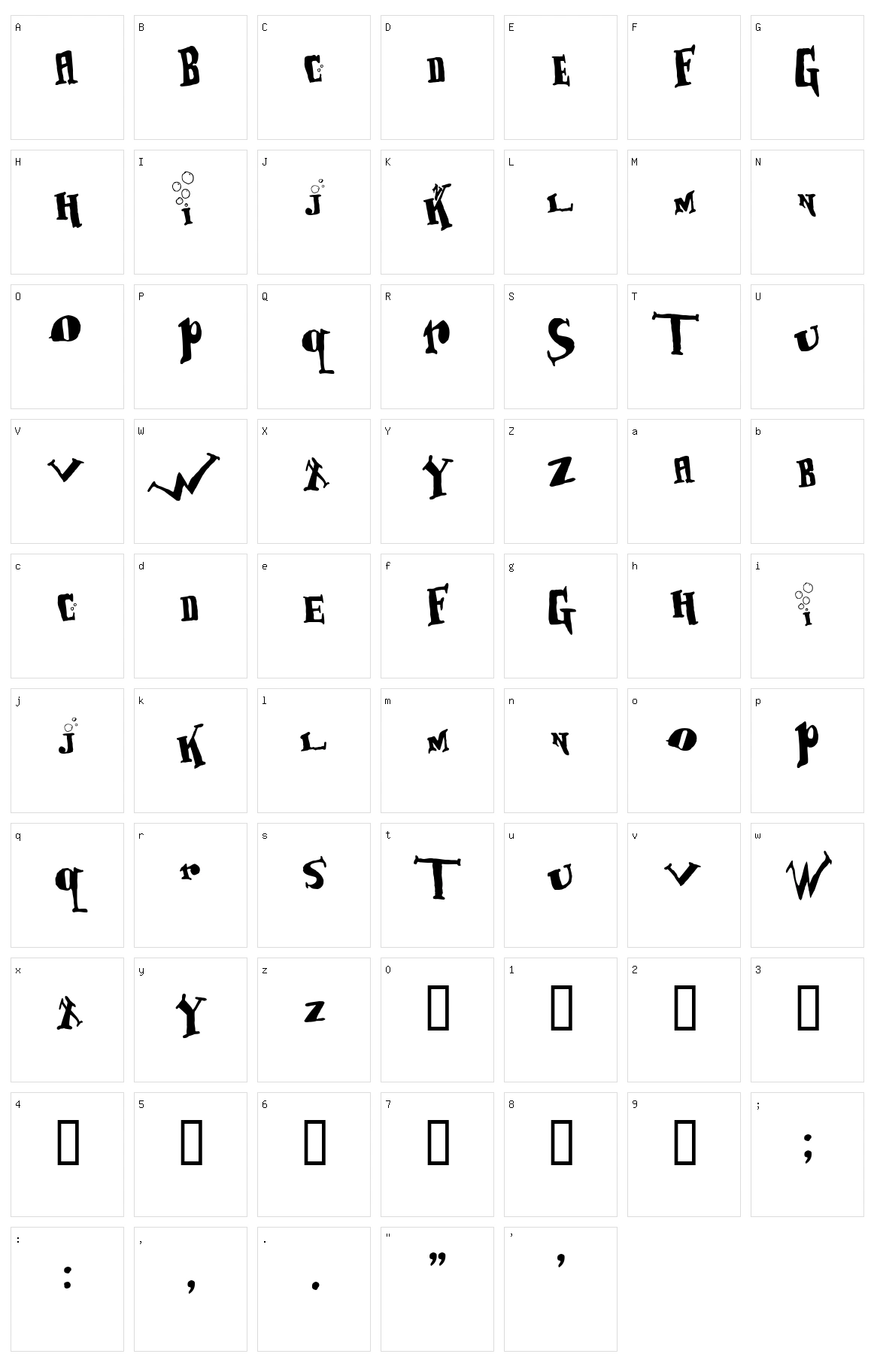
The free font BabOonjaZzbaSsOon is carefully designed by Schmopyright, showcasing a thoughtful balance of creativity and usability and falls under the Cartoon font style. When you download the ZIP file, it contains only 13.35 KB of font files, making it lightweight and quick to download. Please review the license details below to understand permitted usage and distribution rights. If license information is not available, we recommend using this font for personal projects only or contacting the author directly for commercial usage permissions.